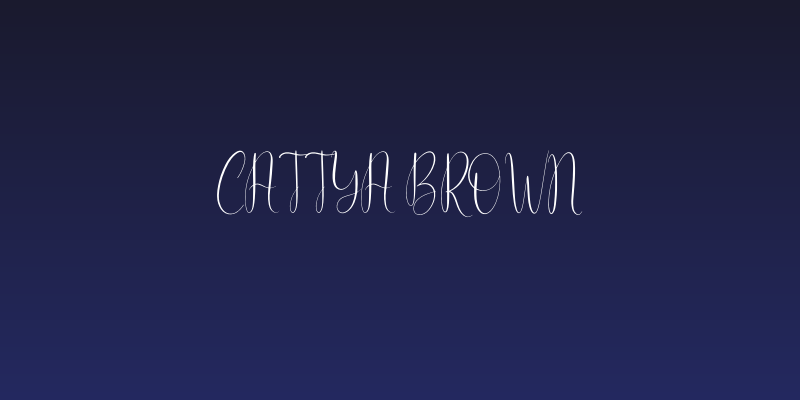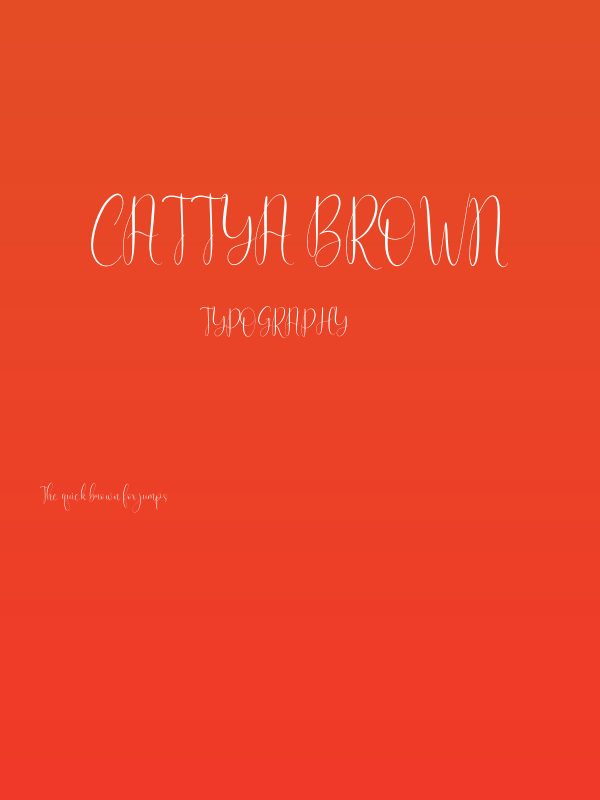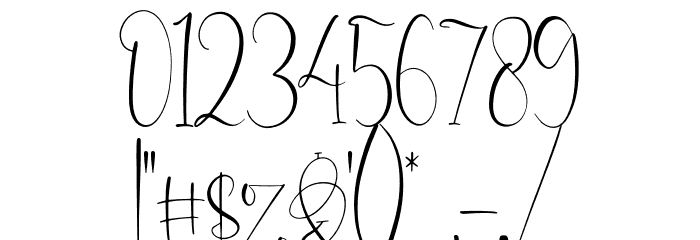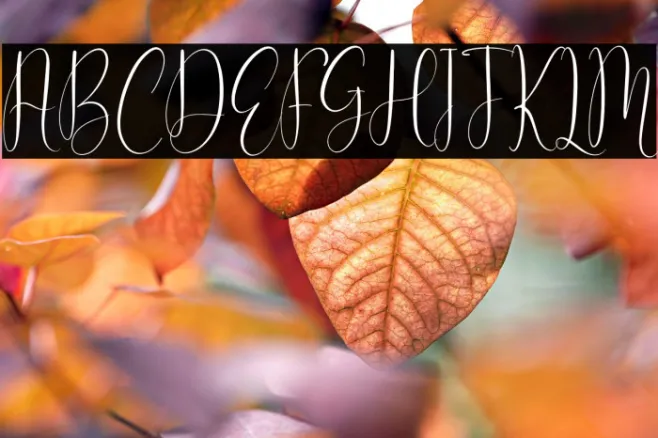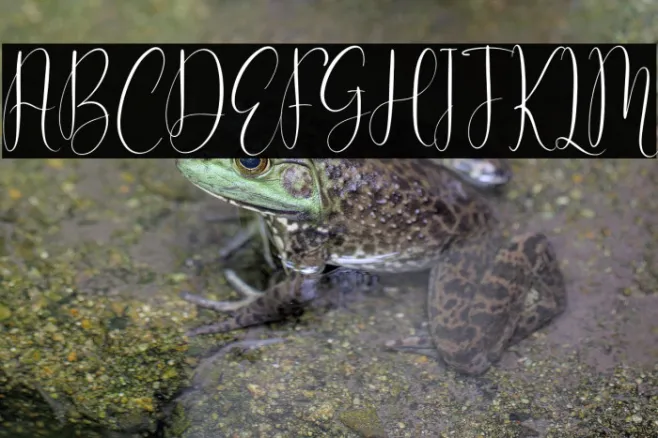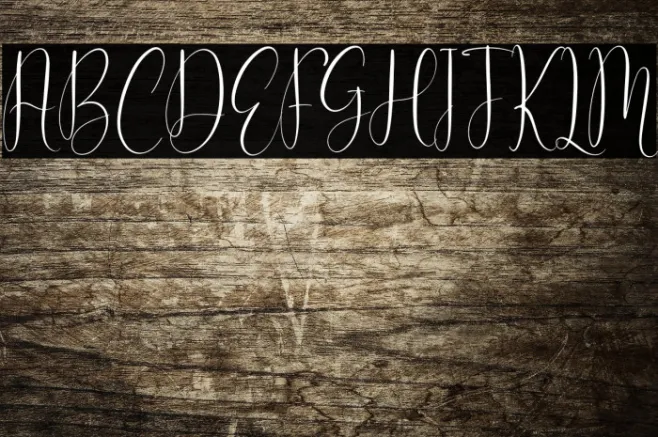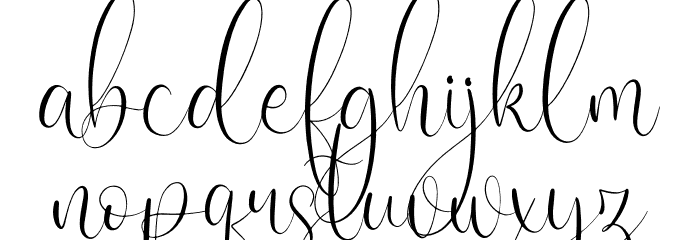
Cattya Brown Font
Cattya Brown Description
This font exudes elegance and sophistication with its flowing, cursive style. The letters are intricately designed with graceful loops and swirls, giving it a handwritten, artistic feel. The uppercase letters are tall and slender, while the lowercase letters maintain a consistent flow, enhancing readability despite their decorative nature. The numerals and special characters are equally ornate, complementing the overall aesthetic. This font is perfect for projects that require a touch of elegance and personal flair, such as wedding invitations, branding, and high-end product packaging.
| Proposed Projects | Ideal for wedding invitations, luxury branding, and elegant product packaging. |